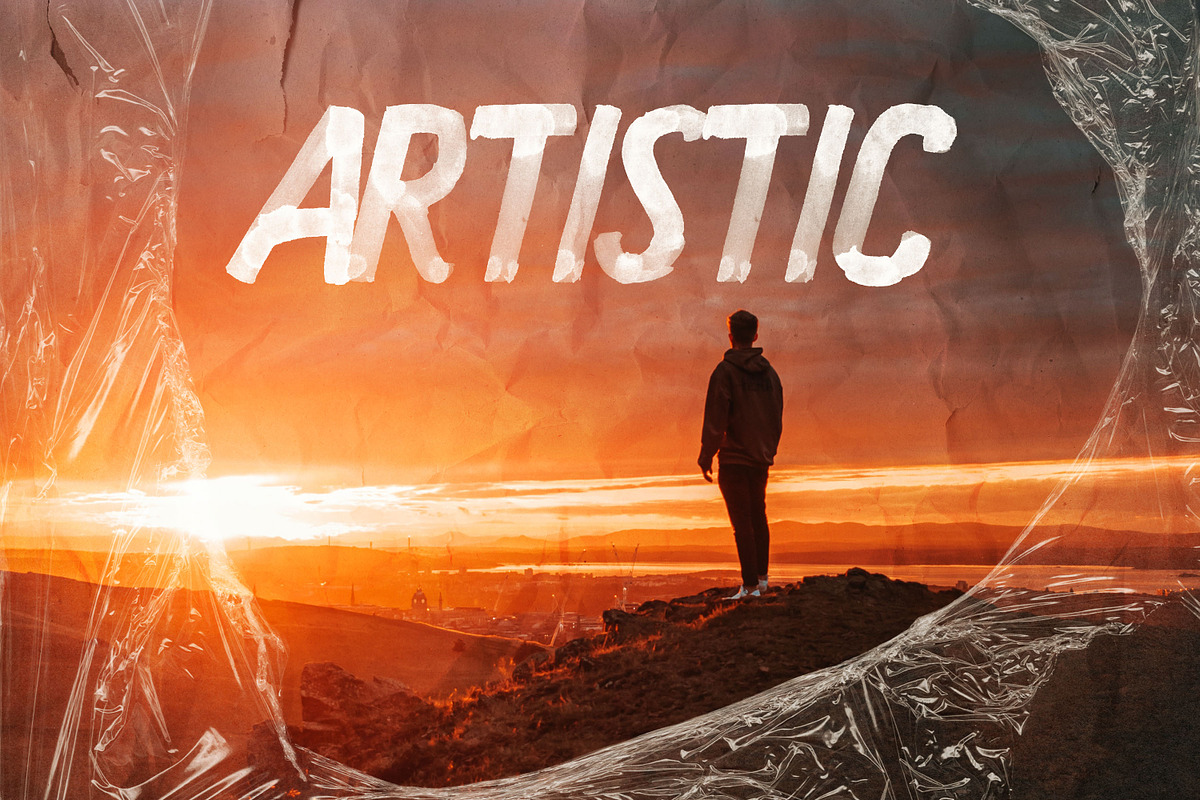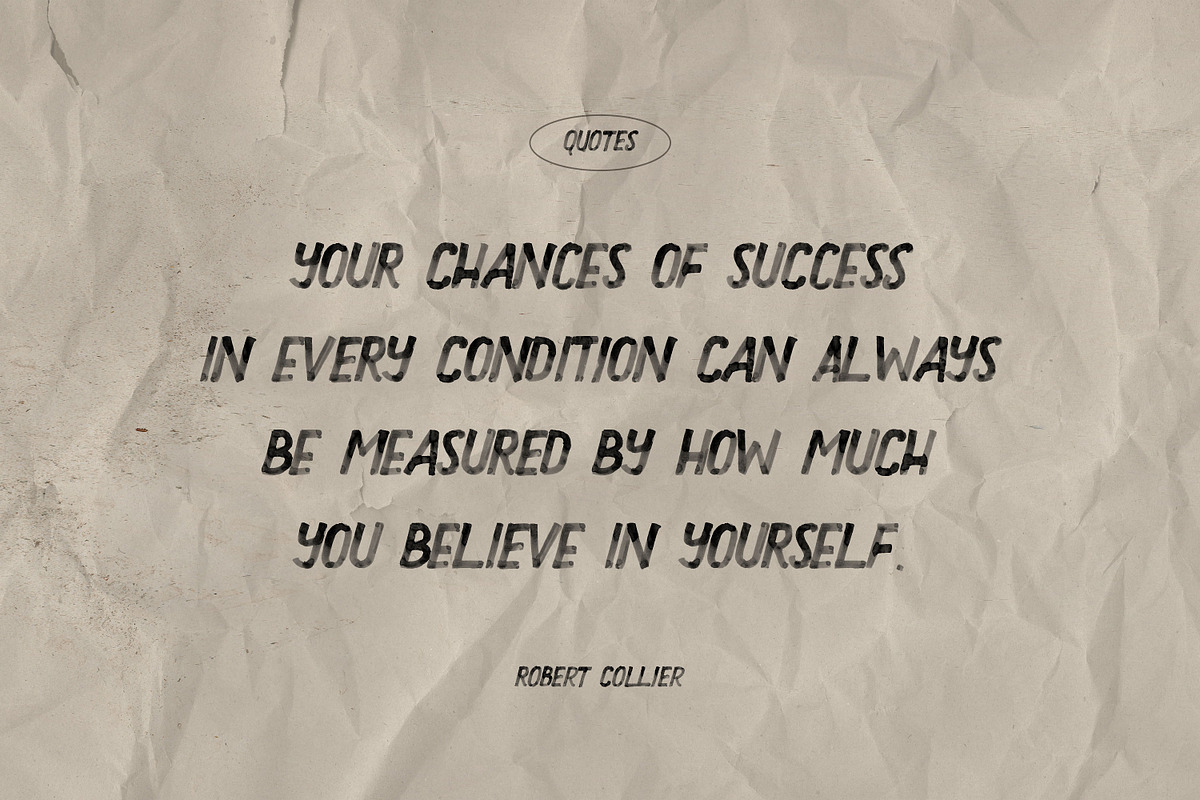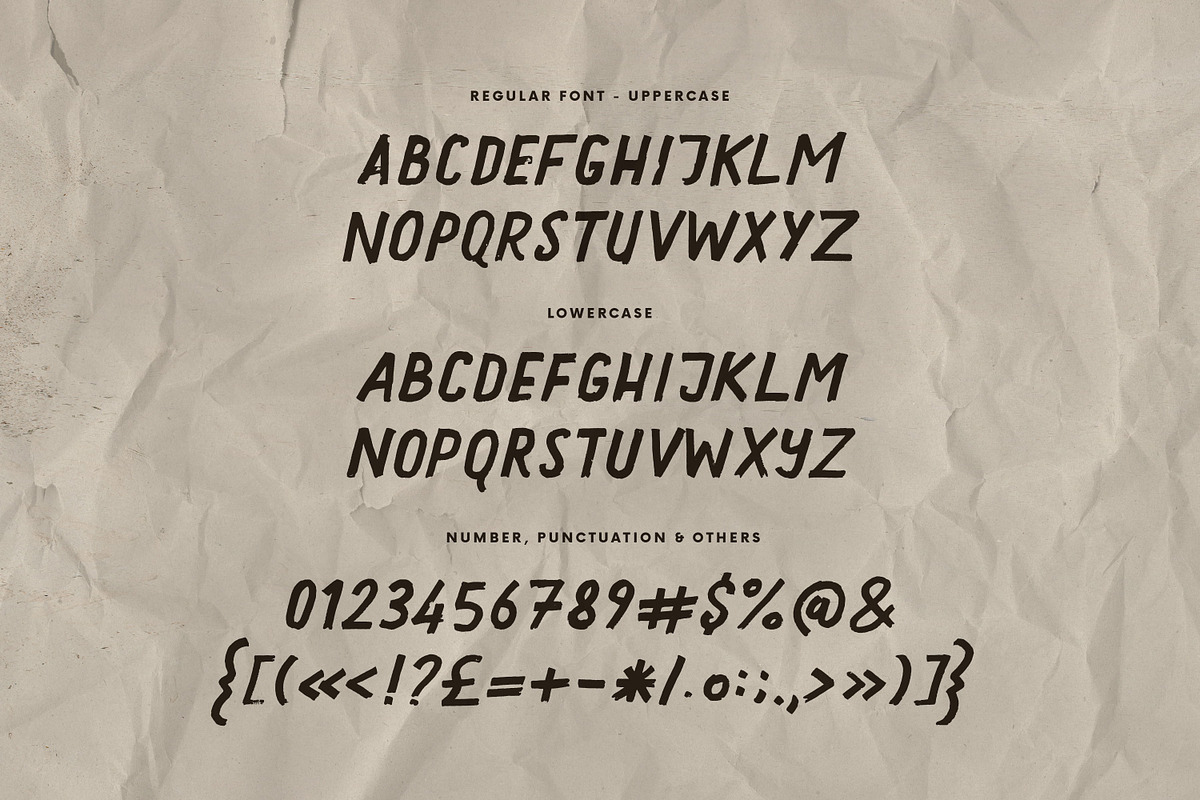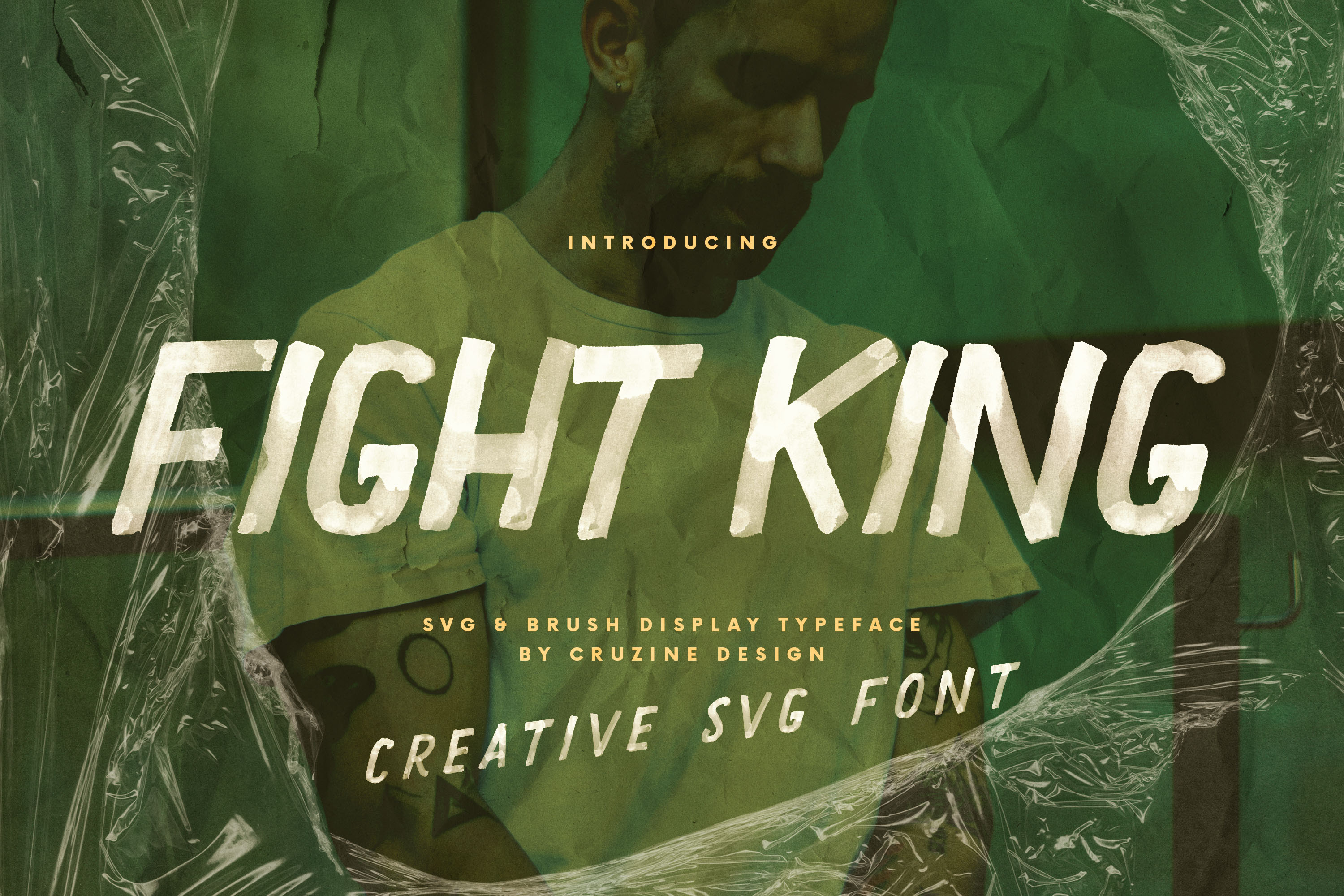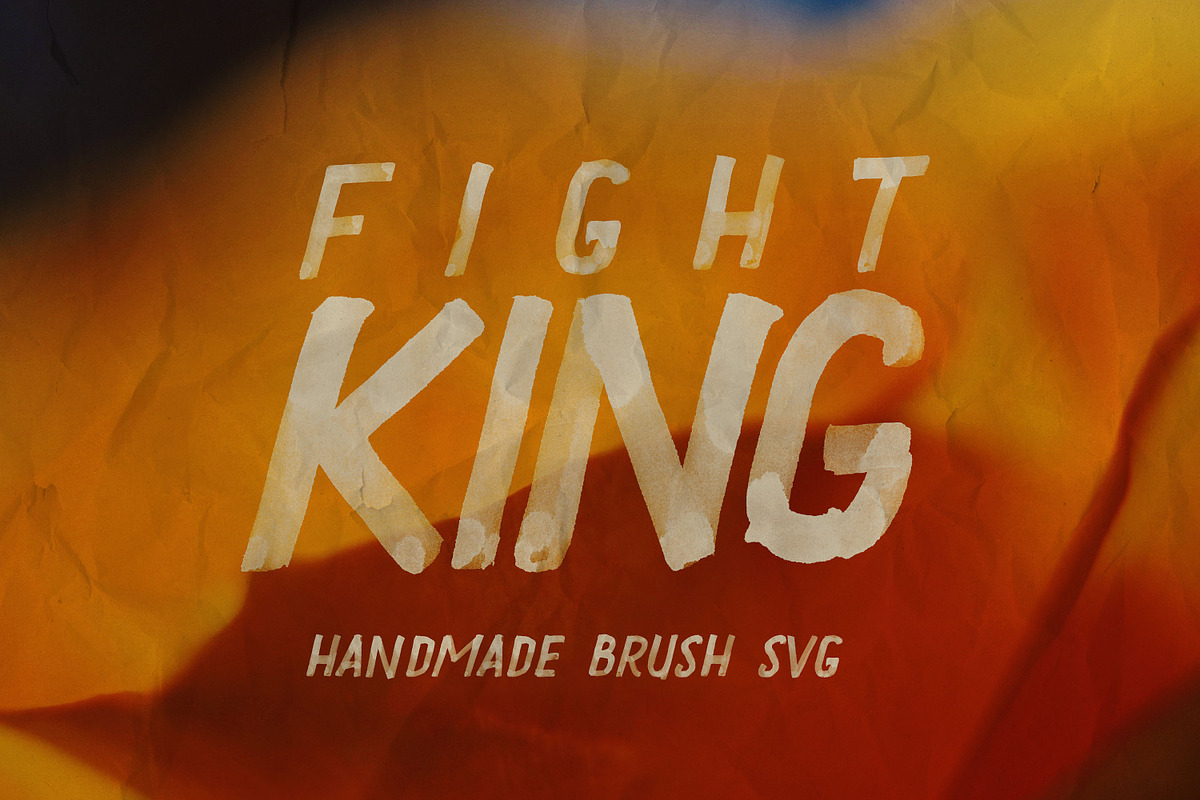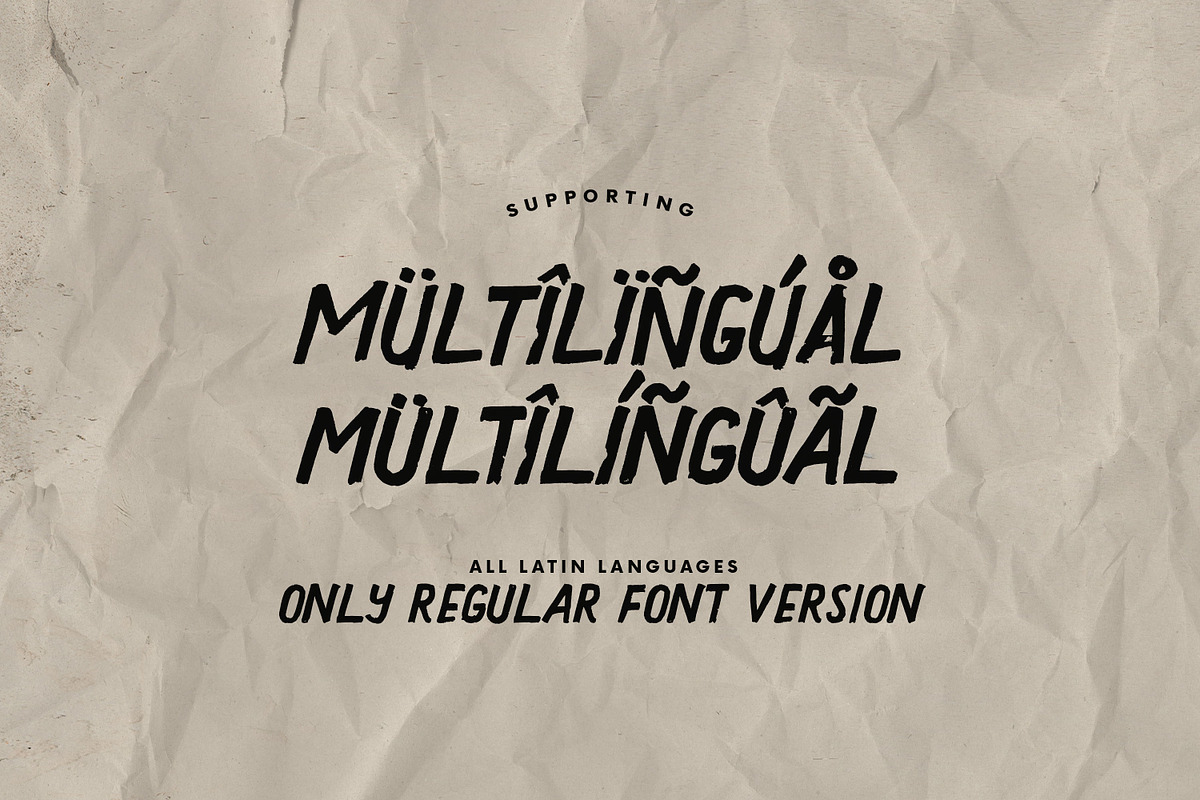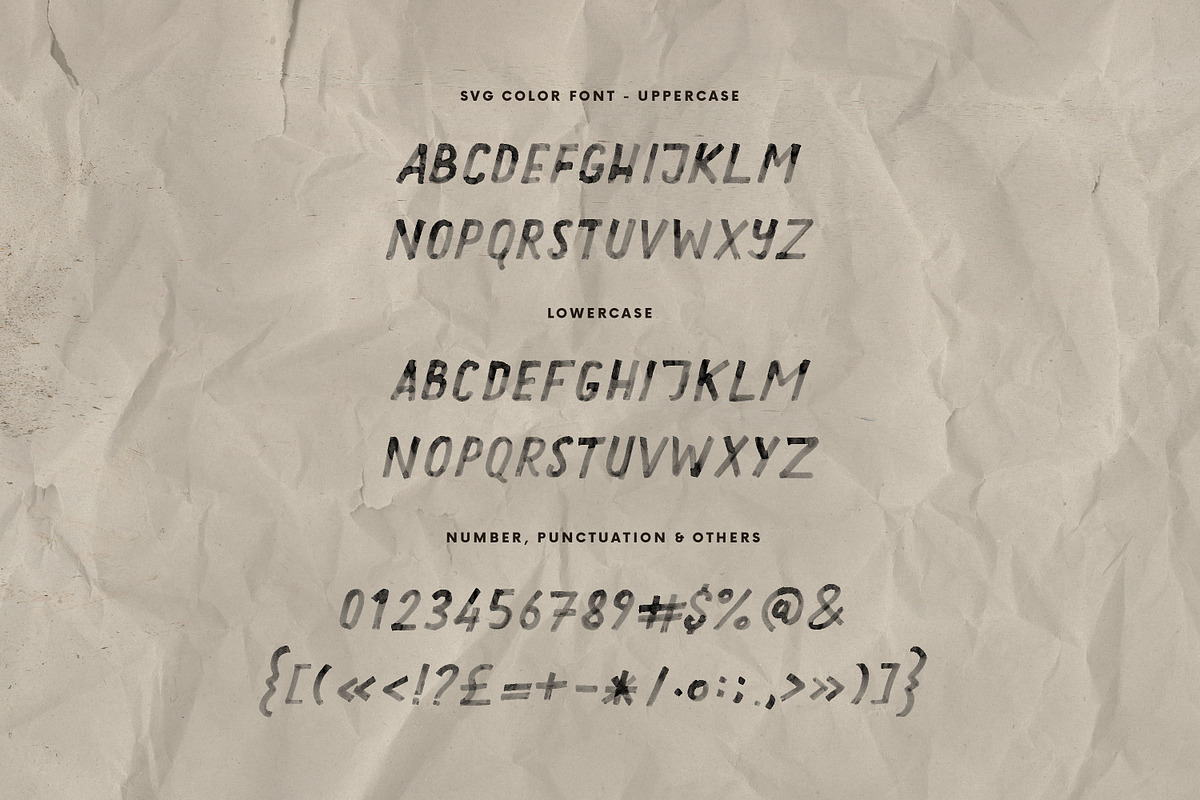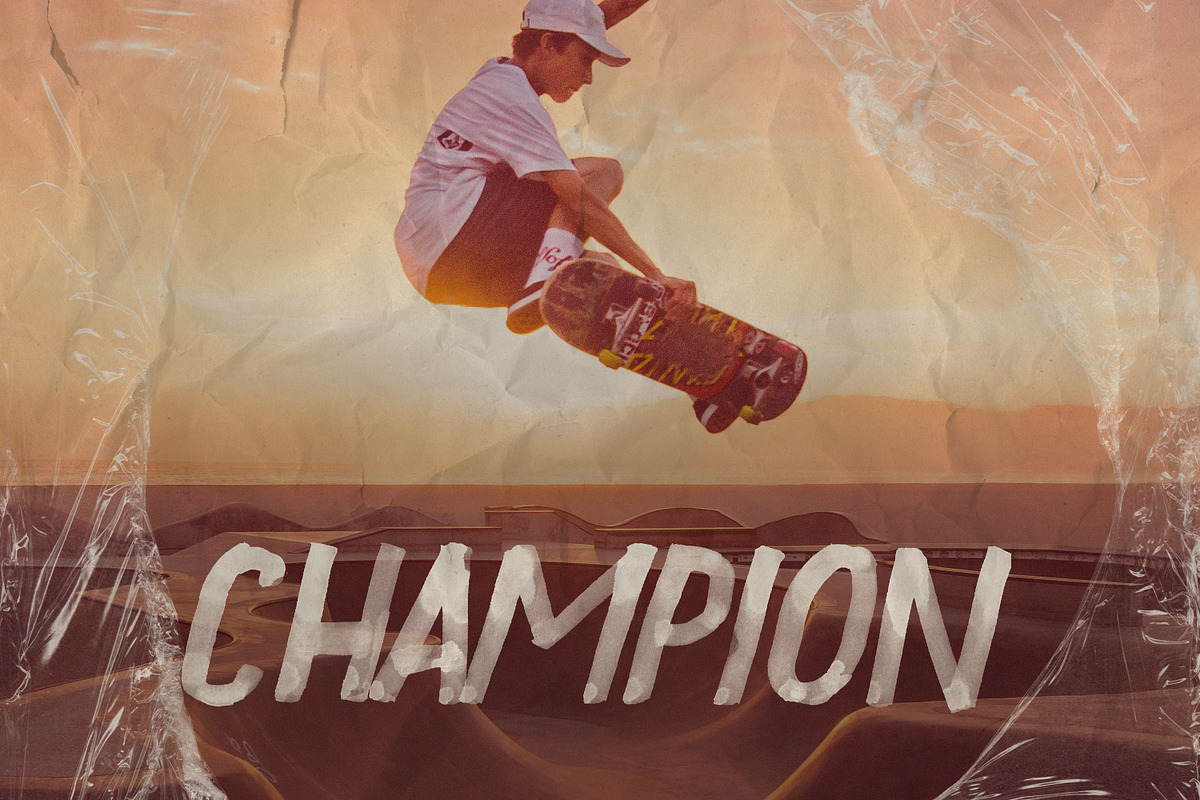
Fight King Brush & SVG Font
Brush, rough or grunge style sans serif display font for your new projects. Handwritten with bold watercolor marker. Great for grunge, urban or artistic projects!